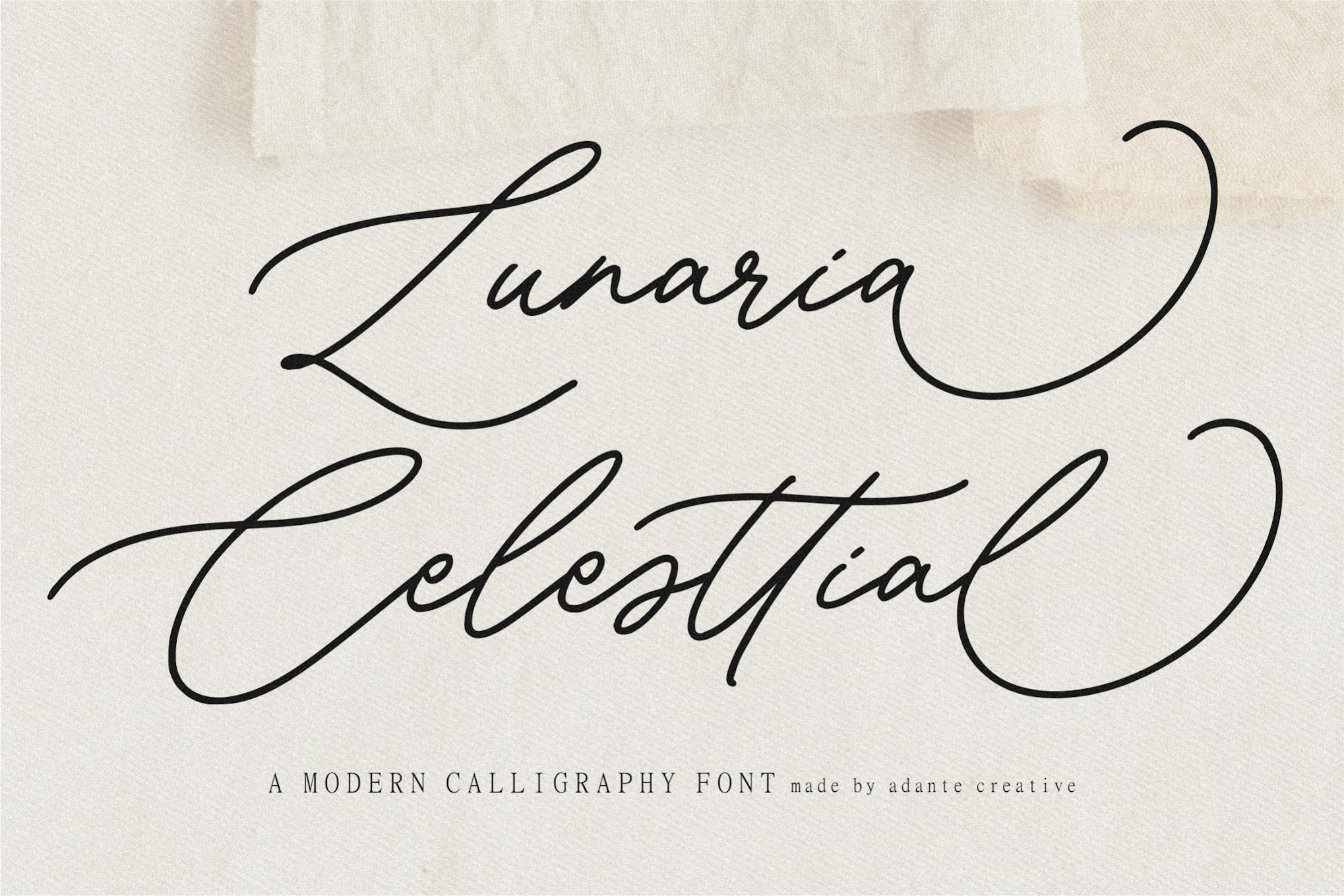
AC - Lunaria Celesttial Font
Few typefaces manage to balance refined proportions and careful stroke modulation with genuine day-to-day practicality. AC - Lunaria Celesttial is one of them. The typeface brings an elegant, calligraphic sensibility to a broad range of creative disciplines, with distinctive character without sacrificing readability that holds up whether the work is print-first or screen-first.
In practice, AC - Lunaria Celesttial proves particularly effective for web design, wedding invitations, signage systems, high-end cosmetic packaging, logo design. Designers reaching for it find that the type decisions feel resolved rather than laboured — a useful quality when client timelines are tight.
The range of applications extends to poster creation, event signage, brand identity systems, luxury stationery. That breadth is deliberate: the proportions and spacing were stress-tested across a wide range of mock briefs before the typeface was finalised.
The consistent rhythm of AC - Lunaria Celesttial across a full paragraph creates the kind of even grey value that makes extended reading comfortable, a detail that matters more in long-form content than its subtlety might suggest.
Graphic designers working on identity systems find AC - Lunaria Celesttial a reliable choice for projects that demand both personality and restraint. The design avoids the self-conscious quirkiness that dates quickly, settling instead for considered distinctiveness that holds up over time.